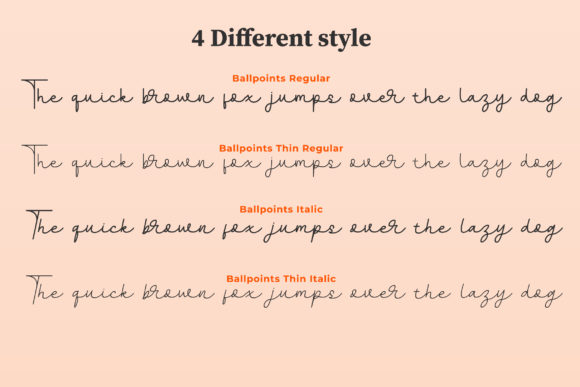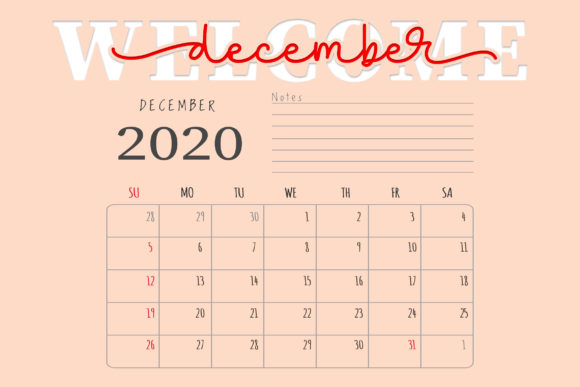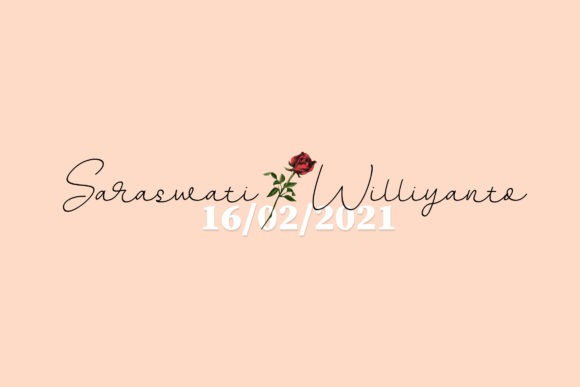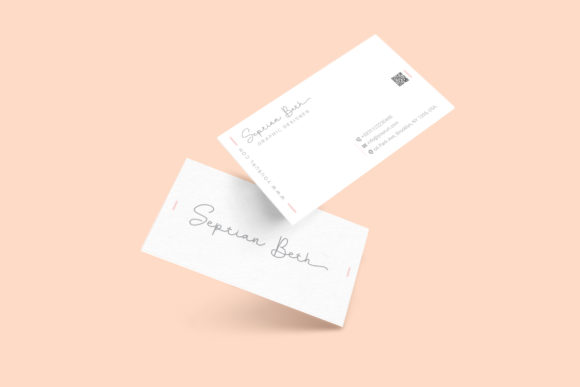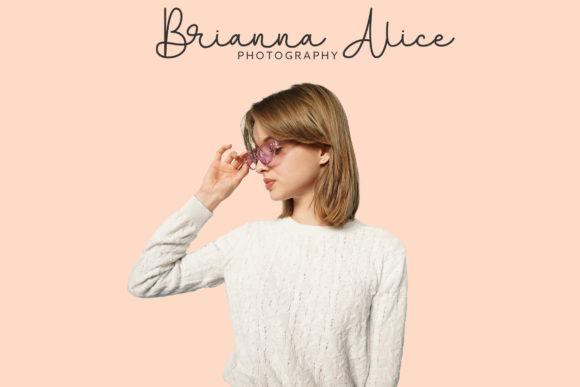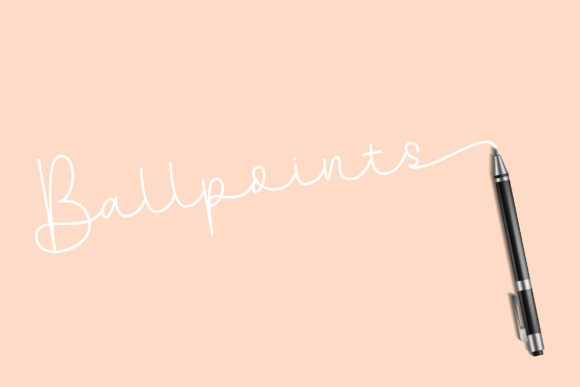
Introducing Ballpoints Font: A Timeless Handwritten Elegance
Are you a designer or crafter looking for a font that adds a touch of elegance and sophistication to your designs? Look no further than Ballpoints Font, an incredibly distinct, delicate, and timeless handwritten font that is sure to elevate your work.
Ballpoints Font is a versatile and beautiful font that looks stunning on a variety of designs, including wedding invitations, thank you cards, quotes, greeting cards, logos, business cards, and every other design that needs a handwritten touch. Its delicate and elegant strokes make it perfect for creating romantic and whimsical designs that capture the essence of any occasion.
What Makes Ballpoints Font So Special?
One of the standout features of Ballpoints Font is its unique and distinctive style. The font’s delicate strokes and elegant swashes make it perfect for adding a touch of sophistication to any design. Whether you’re creating a wedding invitation or a business card, Ballpoints Font is sure to make your design stand out from the crowd.
Another feature that sets Ballpoints Font apart is its PUA encoding. This means that you can access all of the glyphs and swashes with ease, giving you complete creative control over your designs. With PUA encoding, you can easily customize your text and add your own personal touches, making your designs truly unique.
Uses for Ballpoints Font
Ballpoints Font is a versatile font that can be used for a wide range of design projects. Here are just a few ideas to get you started:
• Wedding Invitations: Ballpoints Font is perfect for creating beautiful and elegant wedding invitations that set the tone for your special day.
• Thank You Cards: Add a personal touch to your thank you cards with Ballpoints Font, making them truly special and heartfelt.
• Quotes: Use Ballpoints Font to create stunning quote designs that are perfect for social media, blogs, or even framed prints.
• Greeting Cards: From birthdays to holidays, Ballpoints Font is perfect for creating beautiful and personalized greeting cards.
• Logos: Add a touch of elegance to your logo designs with Ballpoints Font, making them truly memorable.
• Business Cards: Stand out from the crowd with Ballpoints Font, making your business cards truly unique and professional.
Why Designers and Crafters Love Ballpoints Font
Designers and crafters love Ballpoints Font for its unique and elegant style, as well as its versatility. The font is easy to use and customize, making it perfect for a wide range of design projects. Whether you’re a professional designer or a crafter, Ballpoints Font is a great addition to your font collection.
With Ballpoints Font, you can create designs that are truly special and one-of-a-kind. The font’s delicate and elegant strokes make it perfect for creating romantic and whimsical designs that capture the essence of any occasion. Plus, with PUA encoding, you have complete creative control over your designs.
Font Name Ballpoints Font
Author Juncreative
In conclusion, Ballpoints Font is a timeless handwritten font that is perfect for designers and crafters looking to add a touch of elegance and sophistication to their designs. With its unique and distinctive style, PUA encoding, and versatility, Ballpoints Font is a great addition to any font collection.